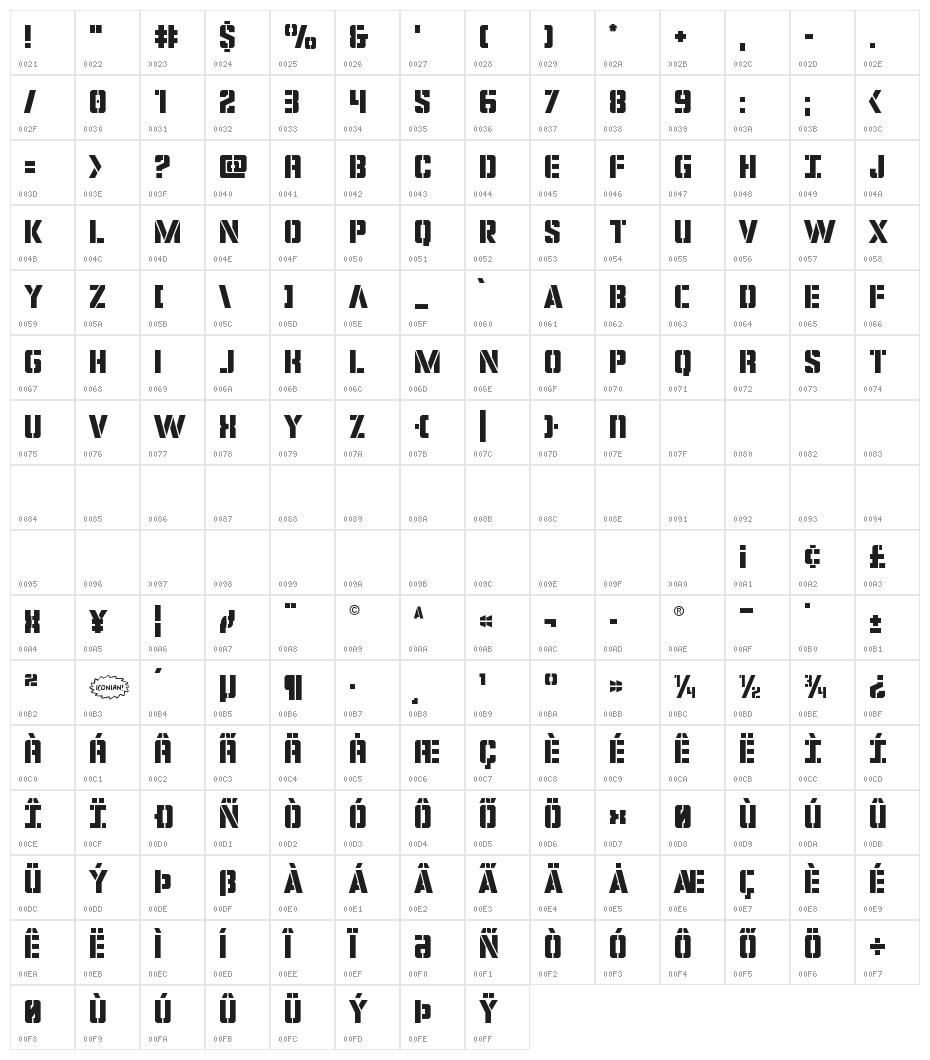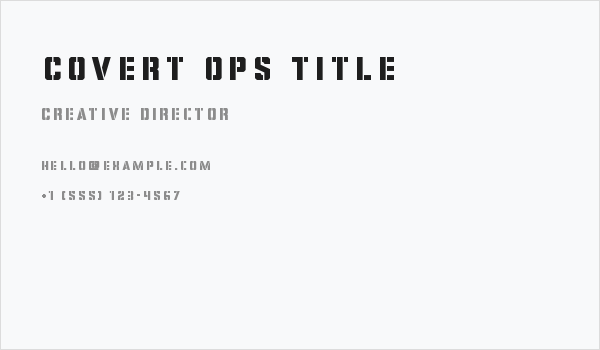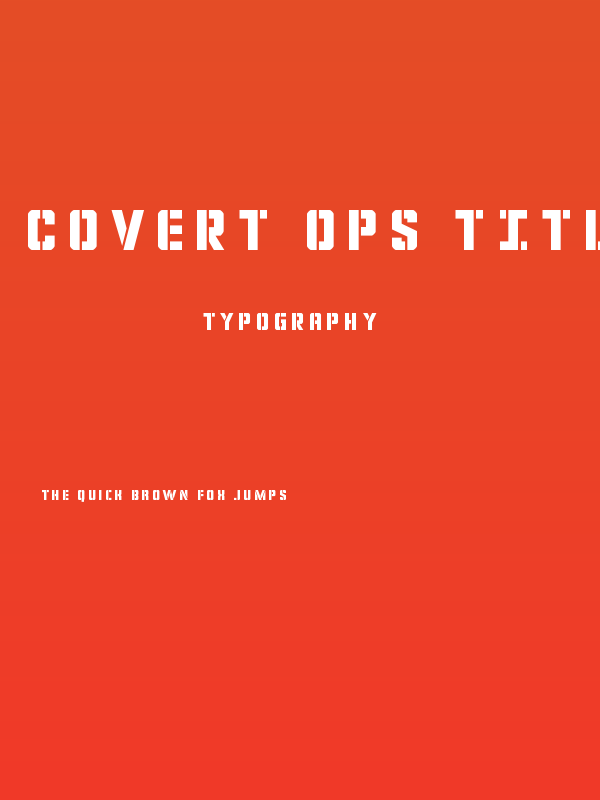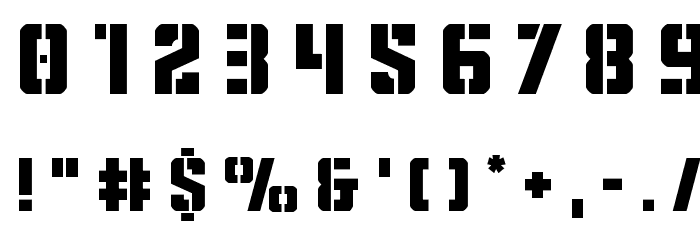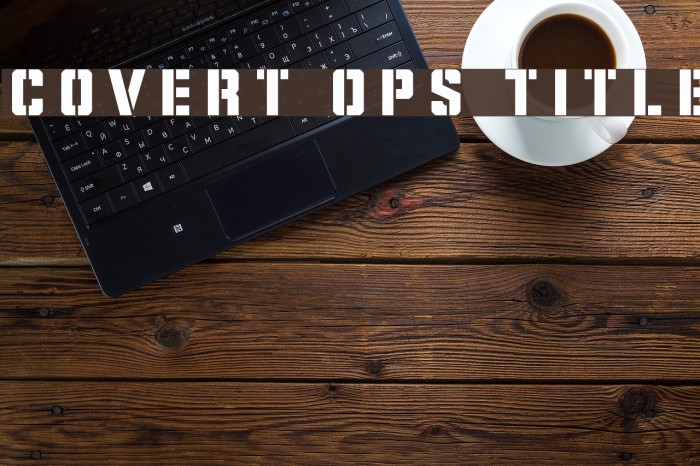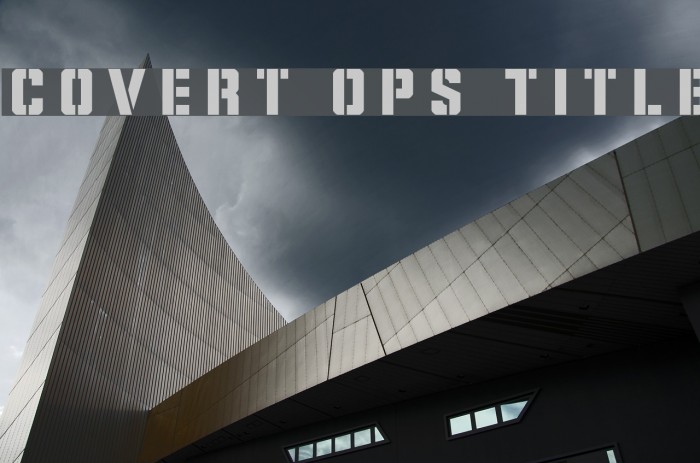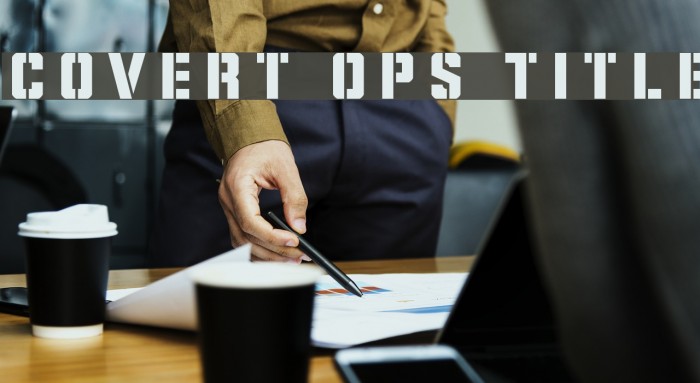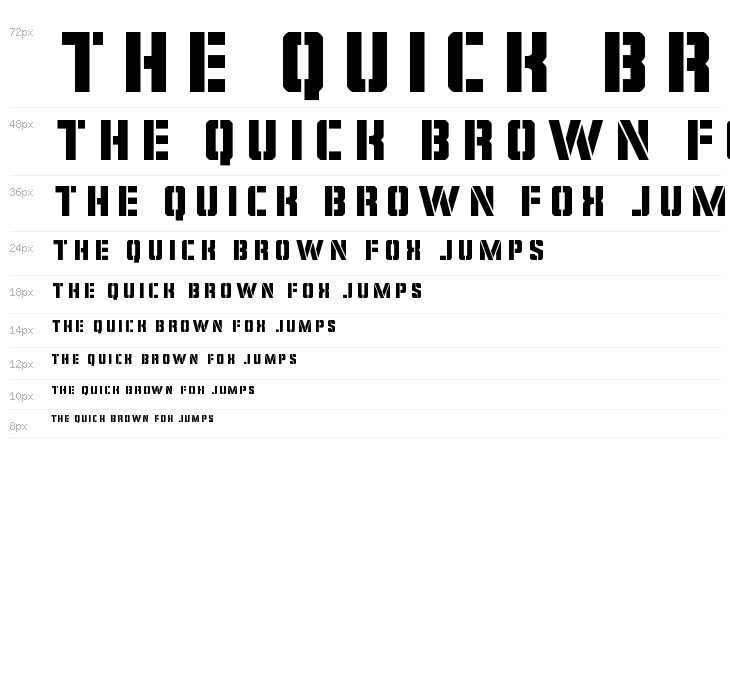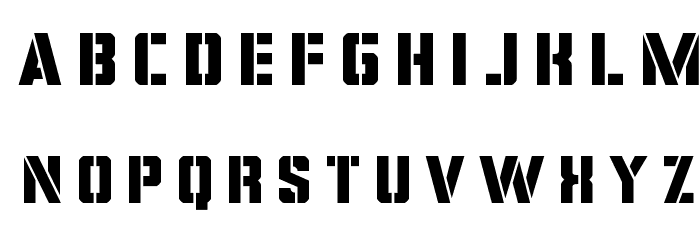
Covert Ops Title Font
Covert Ops Title Description
This font features a bold, stencil-like design with strong geometric shapes and high contrast. The characters are constructed with solid, blocky forms that are interrupted by strategic gaps, giving it a rugged, industrial feel. The uppercase letters are uniform in height, while the lowercase letters maintain a consistent style, enhancing readability. The numerals and special characters follow the same design principles, ensuring a cohesive look across all glyphs. This font is ideal for creating a sense of strength and authority, making it suitable for projects that require a bold statement.
| Overall Style | Modern, Industrial |
| Proposed Projects | Ideal for military-themed designs, posters, branding, and signage that require a strong, authoritative presence. |